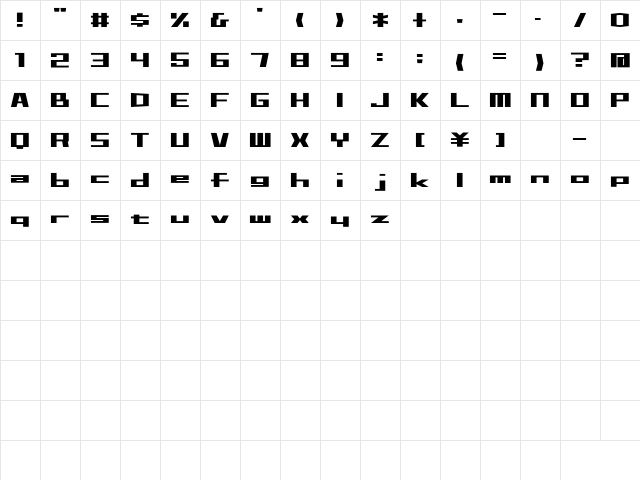
D3 Factorism Alphabet Regular
Design Context for D3 Factorism Alphabet
D3 Factorism Alphabet is a composed and adaptable typeface that performs quietly and consistently across a wide range of design contexts.
Pro Tip: Use D3 Factorism Alphabet in both headline and body roles to test its range before committing to a single application.